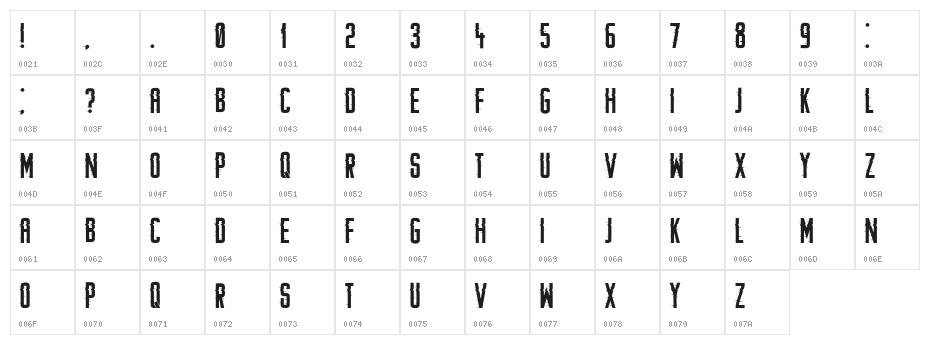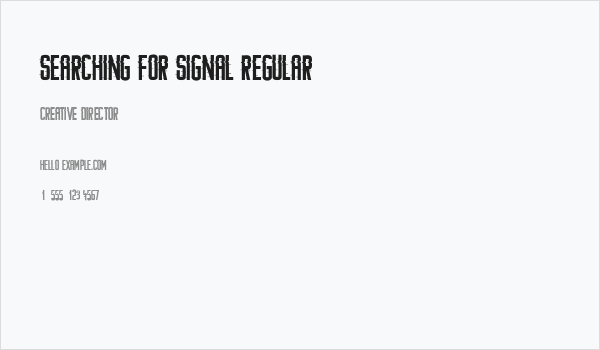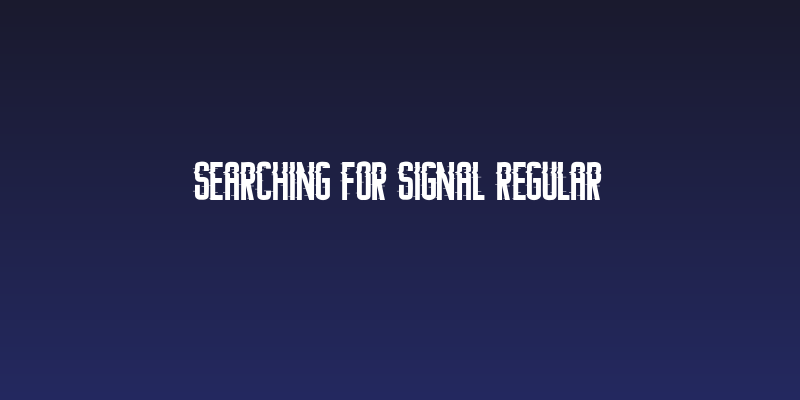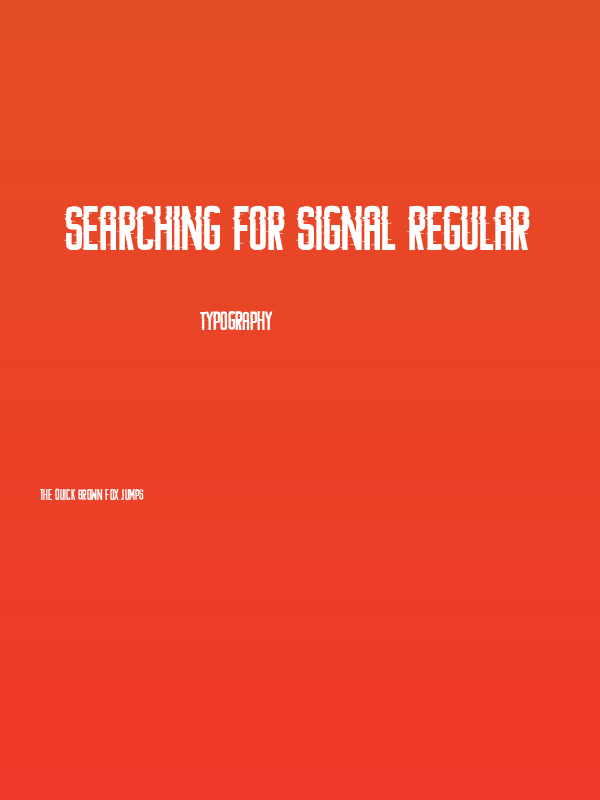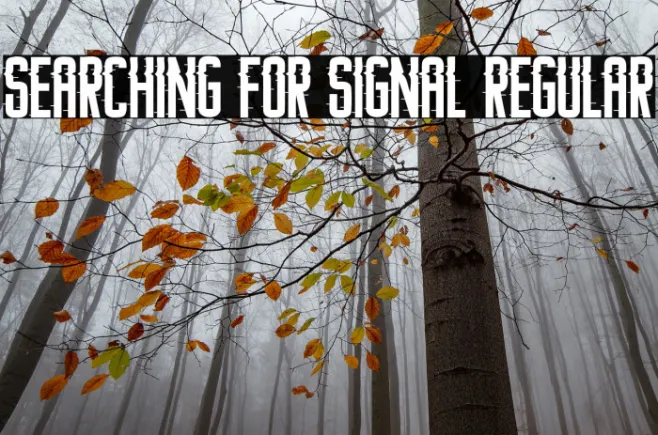
Searching For Signal Regular Font
Searching For Signal Regular Description
This font features a unique, glitch-inspired design that gives the impression of a digital signal disruption. The characters are bold and have a distressed appearance, with horizontal lines cutting through the letters, creating a sense of movement and chaos. The uppercase and lowercase letters maintain a consistent style, with sharp edges and a modern aesthetic. Numbers and special characters follow the same design principles, ensuring a cohesive look across all text elements. This font is perfect for projects that require a futuristic or tech-inspired theme.
SEARCHING-FOR-SIGNAL-REGULAR UPPERCASE
SEARCHING-FOR-SIGNAL-REGULAR LOWERCASE
SEARCHING-FOR-SIGNAL-REGULAR OTHER CHARS